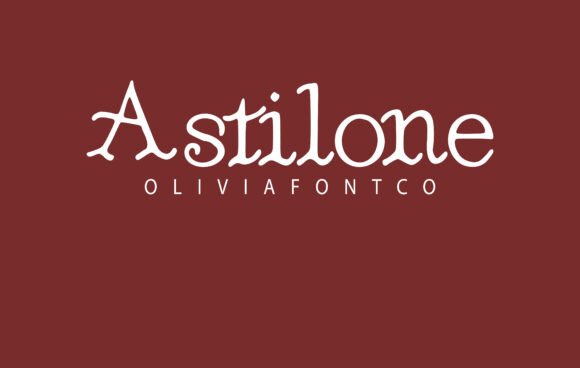
Astilone Font: The Perfect Handwritten Font for Your Creative Projects
Are you looking for a font that can add a romantic touch to your creative projects? Look no further than Astilone Font. This authentic handwritten font is expertly designed to be a true favorite among designers and artists. With its legible and elegant style, Astilone Font has the potential to take your creative ideas to the highest level.
What is Astilone Font?
Astilone Font is a unique and beautiful handwritten font that is perfect for a variety of design projects. Whether you’re creating a magazine headline, social media post, branding material, wedding invitation, or card, Astilone Font is the perfect choice. Its romantic and elegant style makes it stand out from other fonts, and its legibility ensures that your message is conveyed clearly.
Features of Astilone Font
Astilone Font has several features that make it a great choice for designers and artists. Some of its key features include:
- Authentic Handwritten Style: Astilone Font is an authentic handwritten font that is designed to look like it was written by hand. Its unique and elegant style makes it perfect for a variety of design projects.
- Legible: Astilone Font is highly legible, making it perfect for use as a title or body text. Its clear and elegant style ensures that your message is conveyed clearly.
- Romantic Touch: Astilone Font has a romantic touch that makes it perfect for wedding invitations, cards, and other romantic designs.
- Versatile: Astilone Font is a versatile font that can be used for a variety of design projects, including magazine headlines, social media posts, branding materials, and more.
Uses of Astilone Font
Astilone Font is a versatile font that can be used for a variety of design projects. Some of the most popular uses of Astilone Font include:
- Magazine Headlines: Astilone Font is perfect for use in magazine headlines. Its elegant and romantic style makes it stand out from other fonts.
- Social Media: Astilone Font is also great for use on social media. Its clear and legible style ensures that your message is conveyed clearly, even on small screens.
- Branding: Astilone Font is a great choice for branding materials, such as logos, business cards, and letterheads.
- Wedding Invitations: Astilone Font is perfect for wedding invitations and other romantic designs. Its elegant and romantic style makes it a popular choice for couples.
- Cards: Astilone Font is also great for use on cards, such as birthday cards, anniversary cards, and holiday cards.
Why Choose Astilone Font?
There are many reasons why you should choose Astilone Font for your design projects. Some of the top reasons include:
- Unique Style: Astilone Font has a unique and elegant style that makes it stand out from other fonts.
- Legibility: Astilone Font is highly legible, making it perfect for use as a title or body text.
- Romantic Touch: Astilone Font has a romantic touch that makes it perfect for wedding invitations, cards, and other romantic designs.
- Versatility: Astilone Font is a versatile font that can be used for a variety of design projects.
Astilone Font is a beautiful and elegant handwritten font that is perfect for a variety of design projects. Its unique and romantic style makes it stand out from other fonts, and its legibility ensures that your message is conveyed clearly. Whether you’re creating a magazine headline, social media post, branding material, wedding invitation, or card, Astilone Font is the perfect choice. So why wait? Download Astilone Font today and take your creative ideas to the highest level.